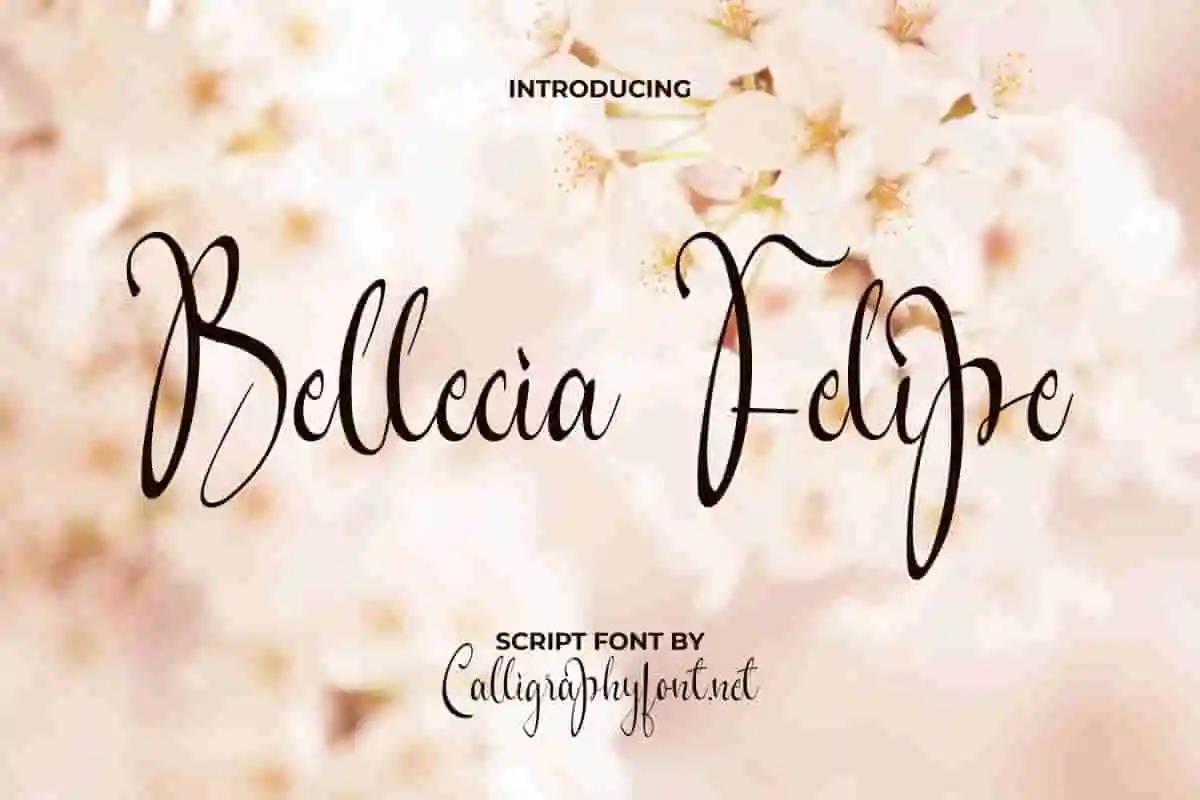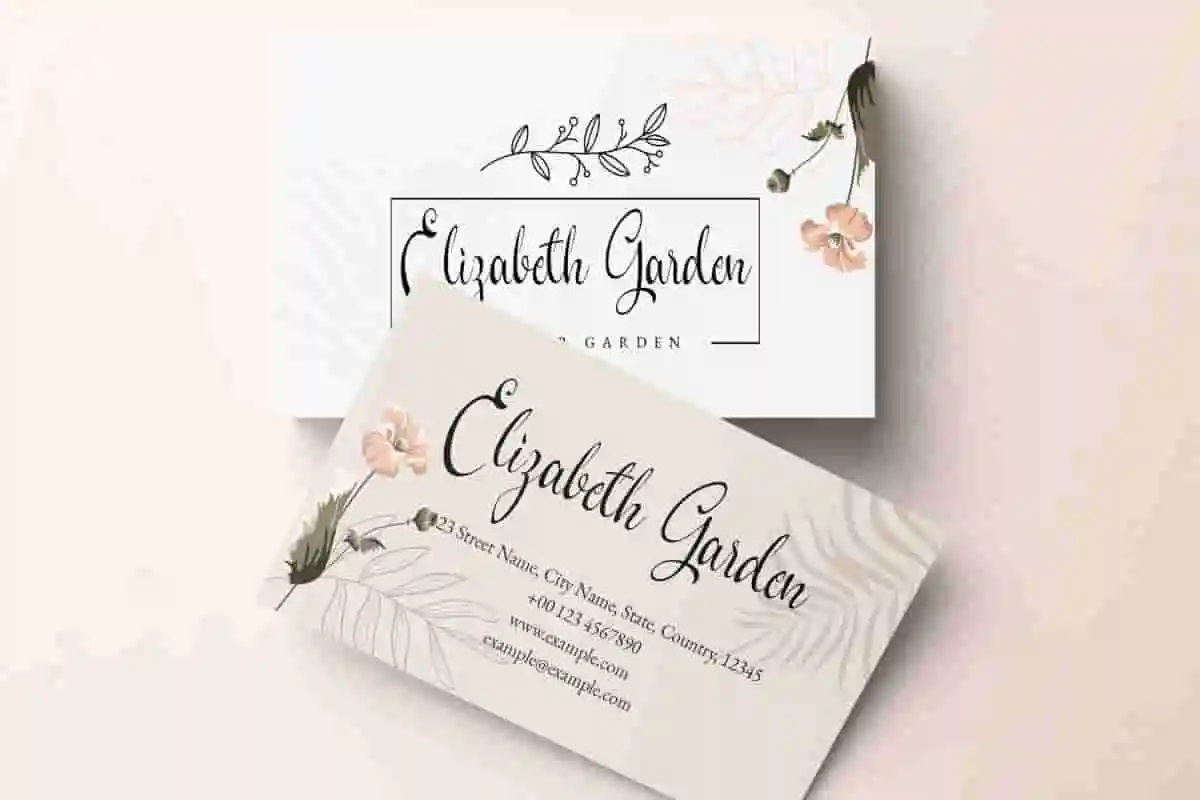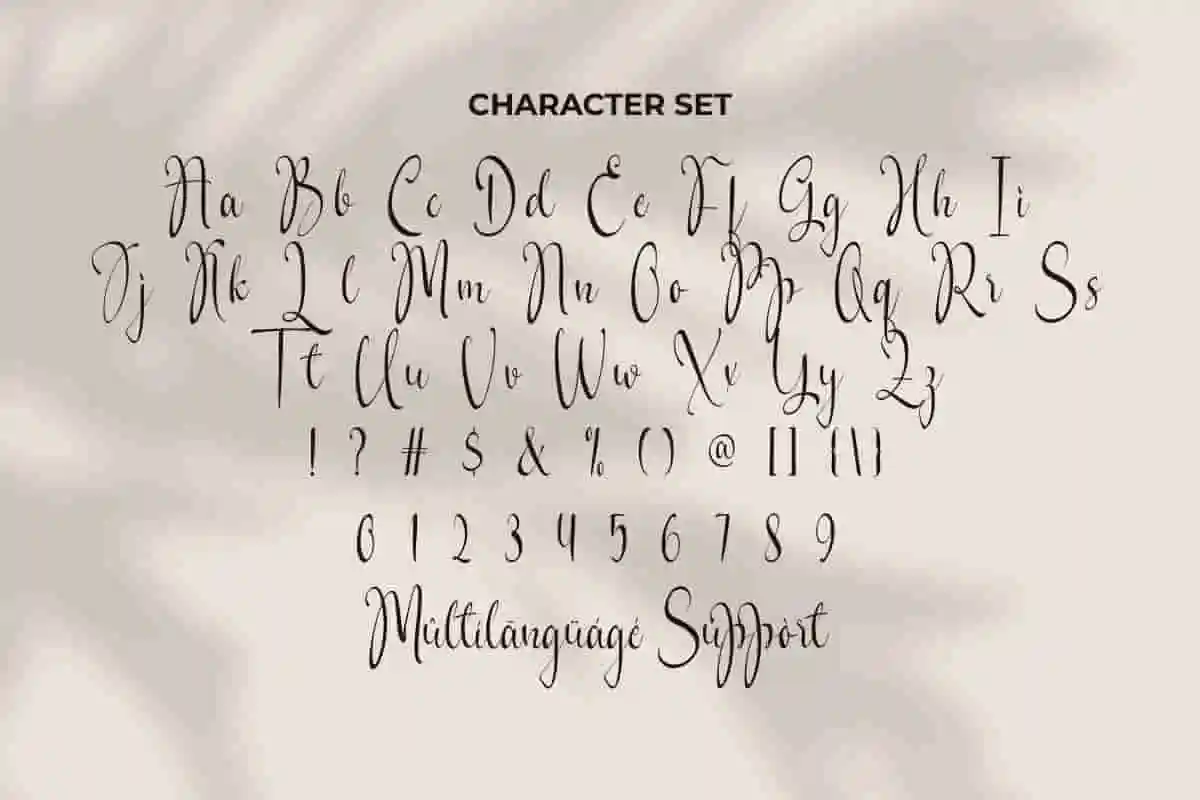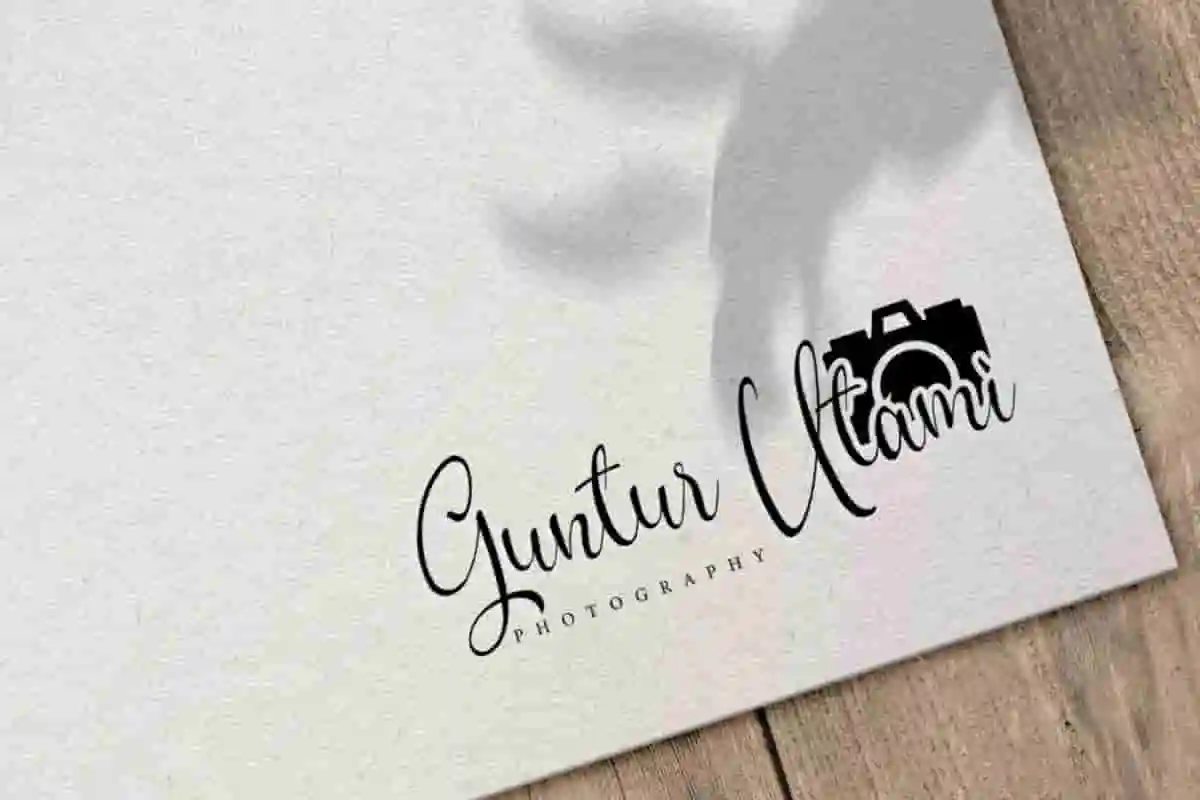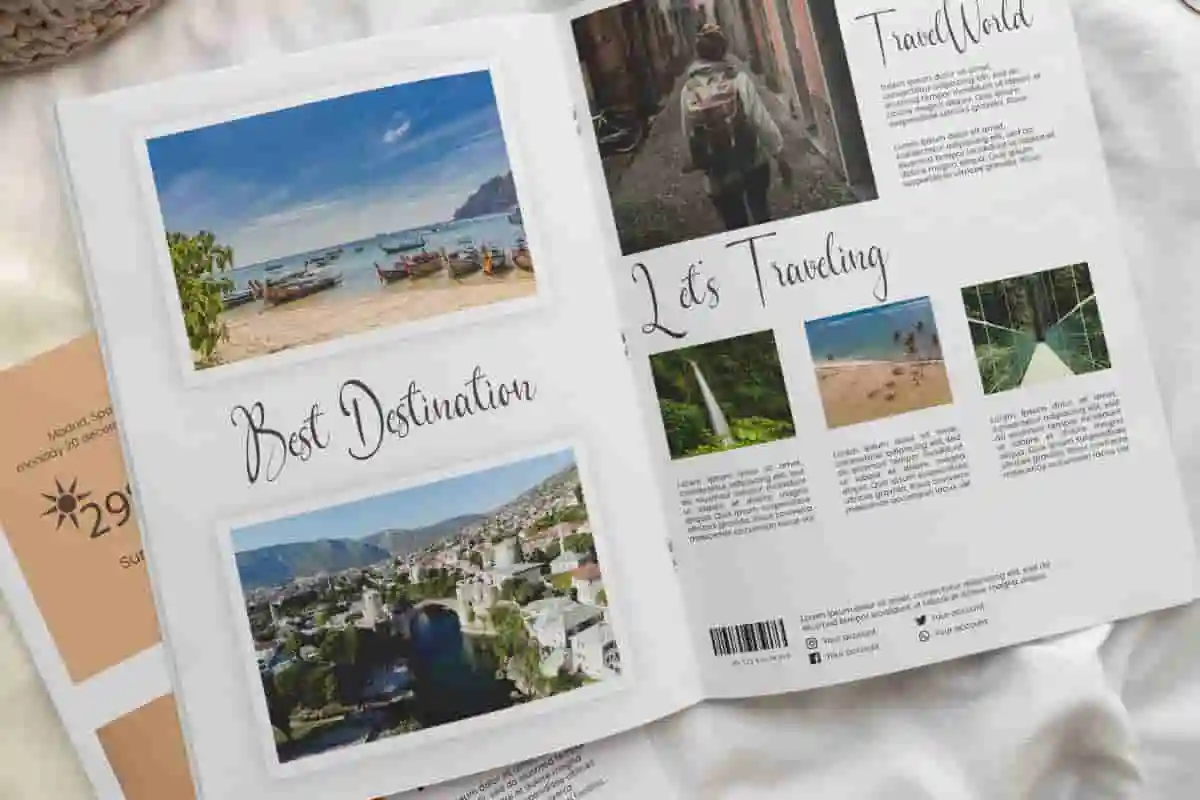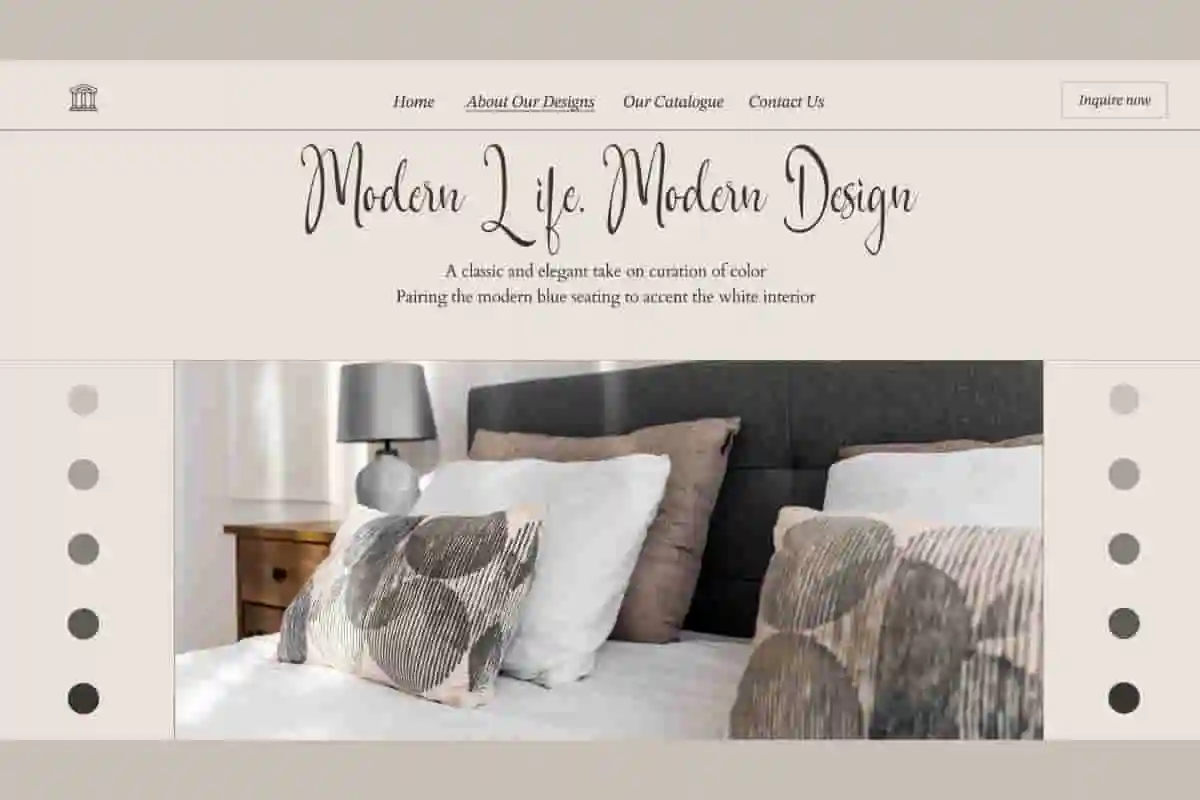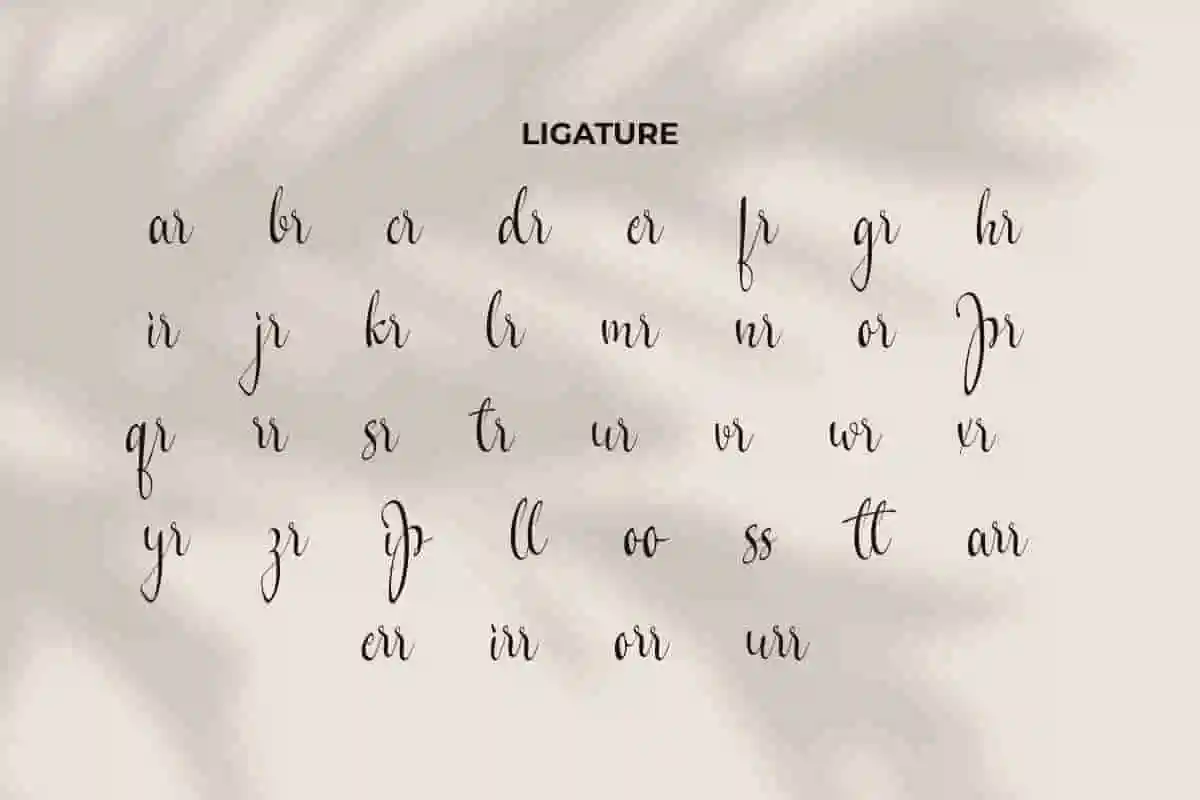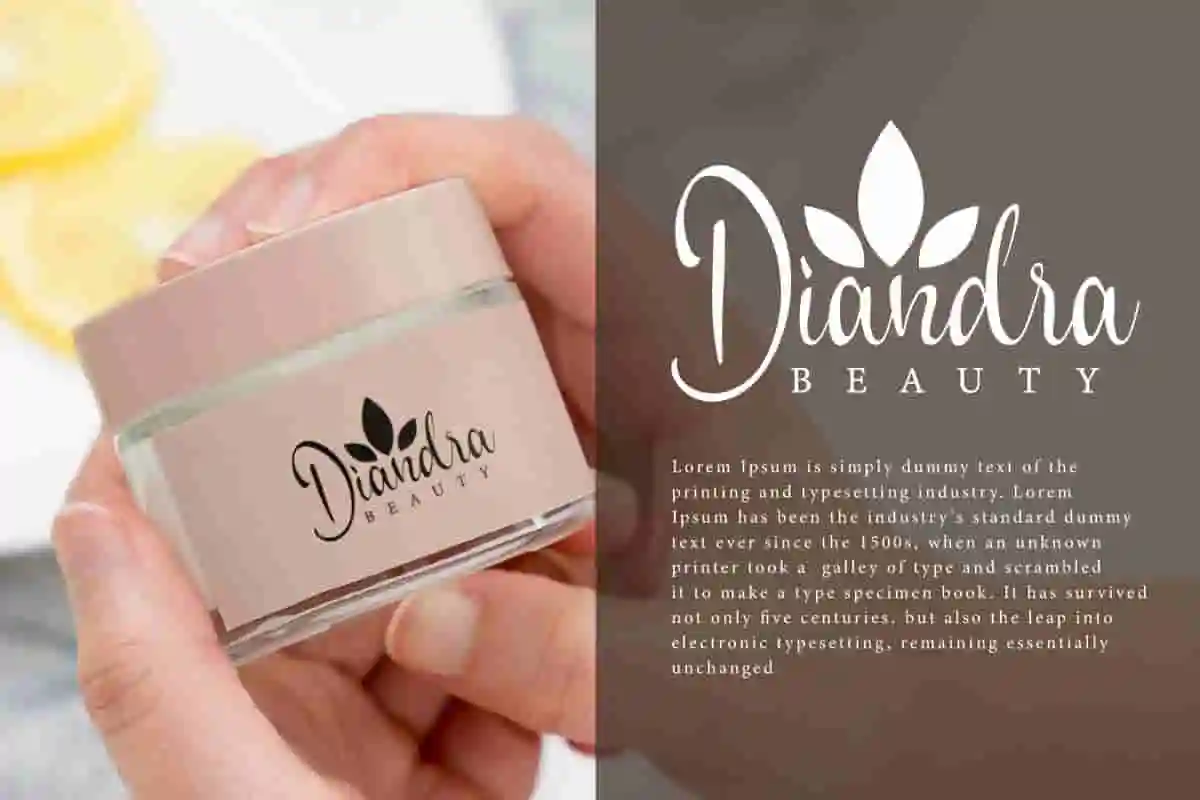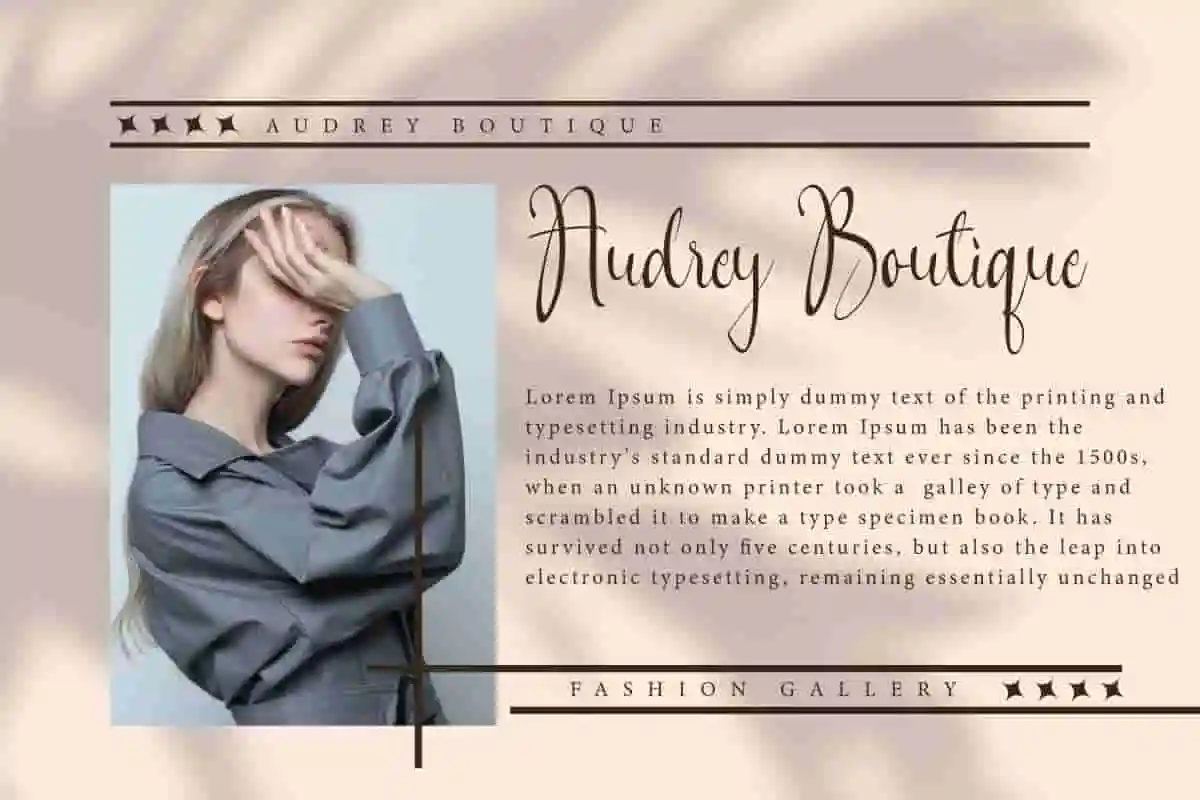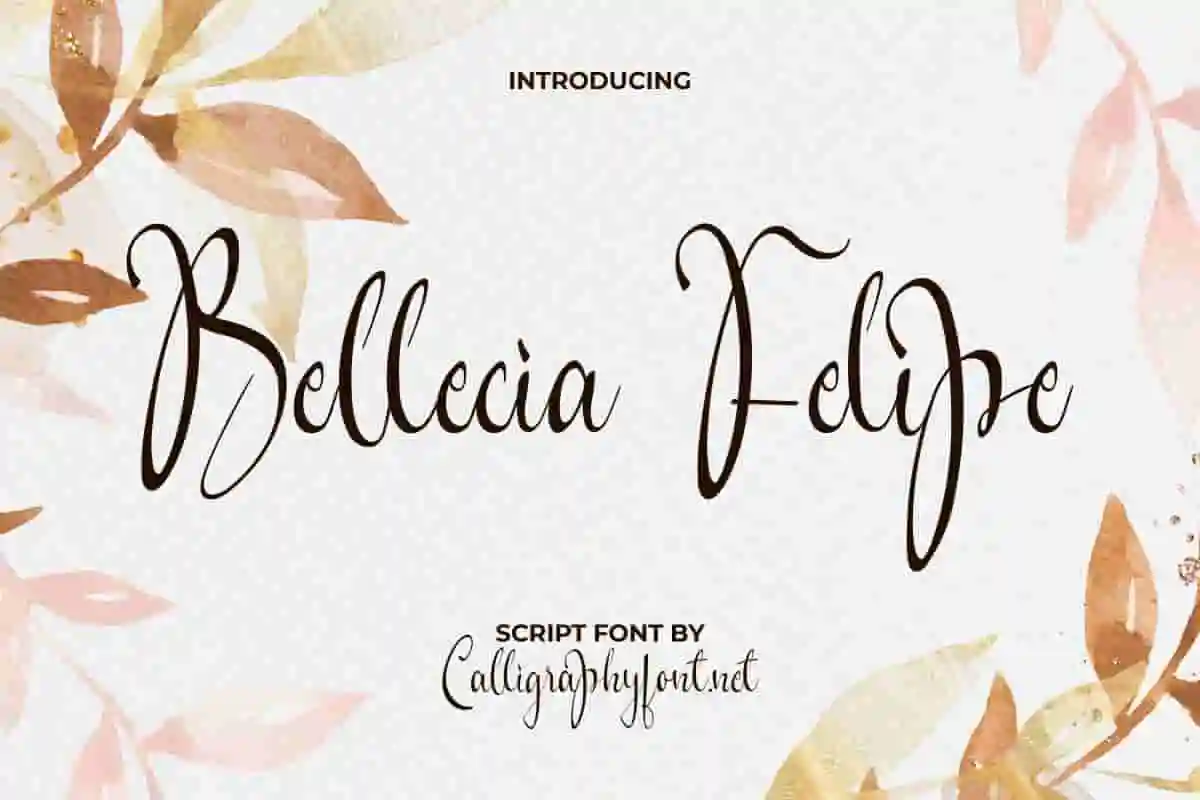
Bellecia Felipe Font
Bellecia Felipe Font is a classy script font from CalligraphyFonts that will make it suitable for boutique, florist, furniture, photography, stationery, travel agent, website, and anything that needs a touch of script that exudes elegance.
Bellecia Felipe Font is a classy calligraphy script with feminine touch, created by CalligraphyFonts. This font will be perfect for your creative projects, such as brand logo, business card, magazine catalog, mockup design, skincare packaging design, quote, stationery, title, website, etc.
Perfect for wedding invitations, greeting cards, logos, branding, stationery, and social media posts, this font transforms ordinary text into a captivating design element. Whether you’re a professional designer or a creative enthusiast, Bellecia Felipe will help you achieve polished, eye-catching results with ease.
Its versatility makes it ideal for both formal and playful projects. From luxurious branding to heartfelt personal messages, Bellecia Felipe Font delivers the perfect blend of style and readability. The font is crafted with attention to detail, ensuring smooth use in both digital and print formats.
If you’re searching for a calligraphy font that exudes elegance and creativity, Bellecia Felipe Calligraphy Font is your ultimate design companion. Elevate your projects today and let every word make a lasting impression.
Bellecia Felipe Calligraphy Font will be great for any industry, including: artist, boutique, cosmetic, florist, furniture, hotel, interior design, photography, real estate, restaurant, salon, spa, travel agent, wedding organizer, and anything that needs a touch of script that exudes elegance.
Bellecia Felipe Calligraphy Font comes with a full set of Uppercase and Lowercase Basic Characters, Number, a large range of Punctuation and Symbol, Ligature, and also supports multilingual characters. Ready to use both on Windows machine or Mac with simple installations. It’s tested to work well in the Adobe Apps (Illustrator, Adobe InDesign, Adobe Photoshop) CorelDraw, and others. PUA Encode Characters means you can access all the glyphs and other additional characters easily – Fully accessible without additional design software.